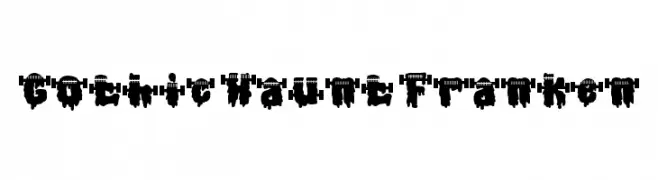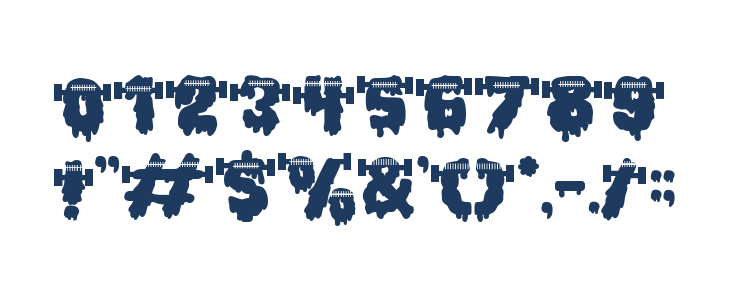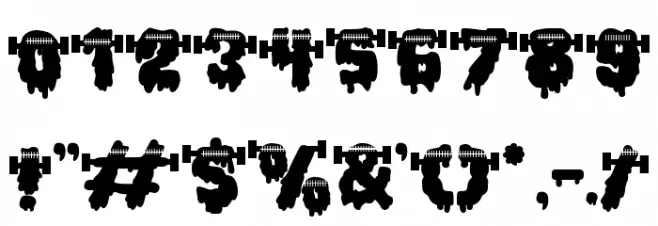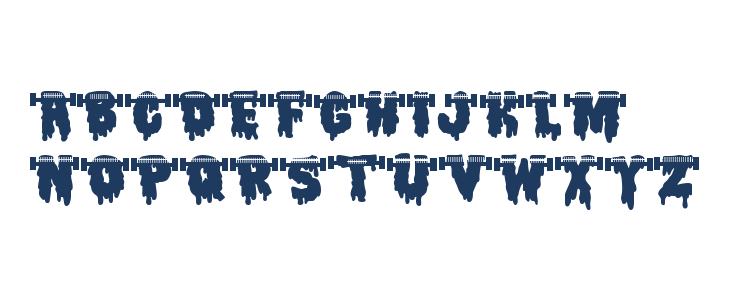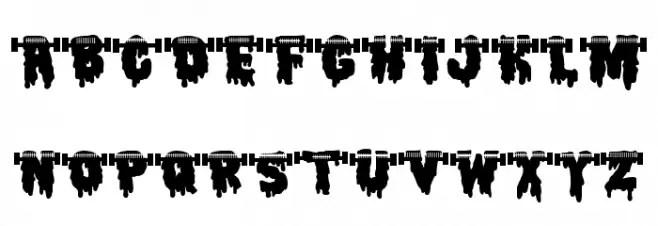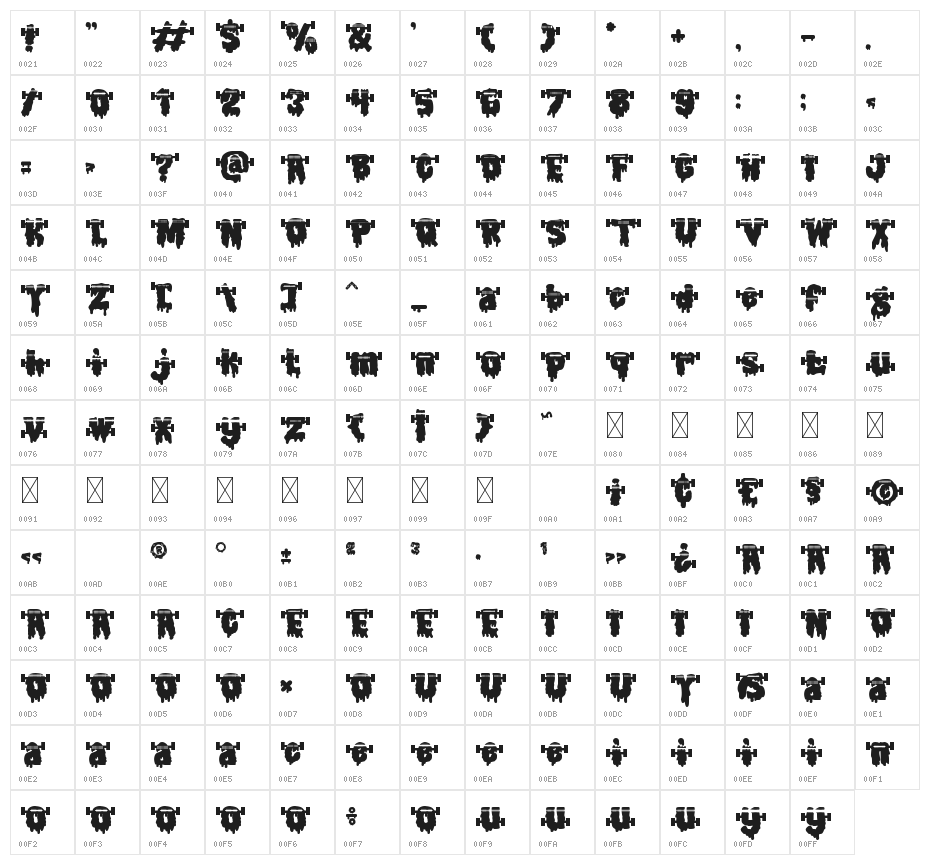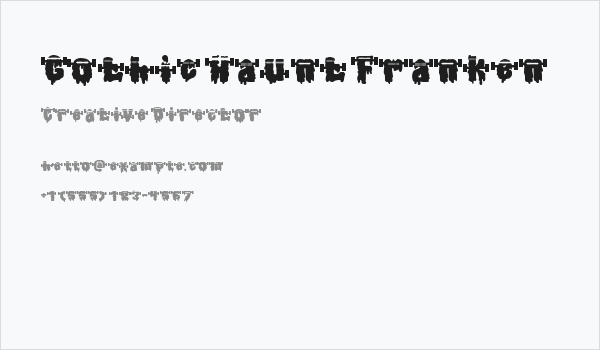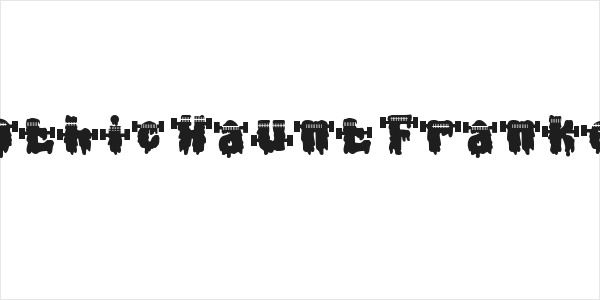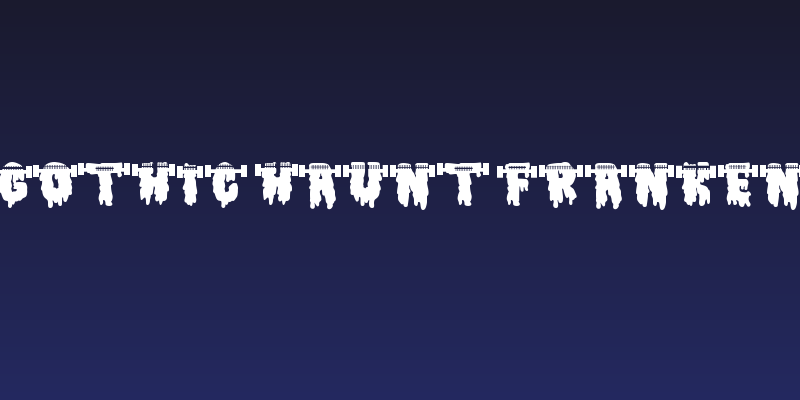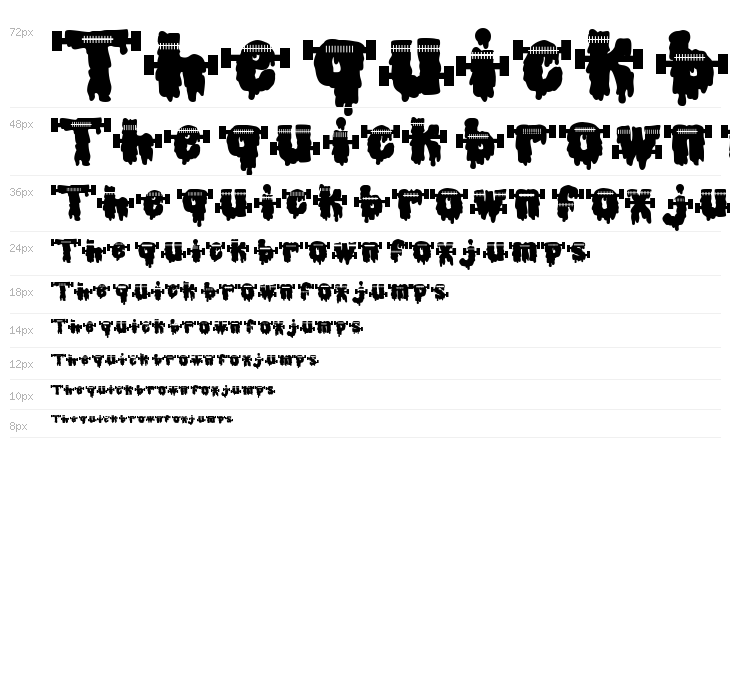
Gothic Haunt Franken Font
A bold, decorative display font with a horror-inspired, dripping effect and mechanical elements, evoking a Frankenstein or haunted laboratory theme. The characters are uppercase and lowercase with consistent width and dramatic, irregular edges.
| Overall Style | Decorative, Horror, Themed |
| Use Case | Headlines, Posters, Logos, Event Flyers |
| Proposed Projects | Halloween posters, haunted house branding, horror movie titles, themed party invitations, spooky event signage. |